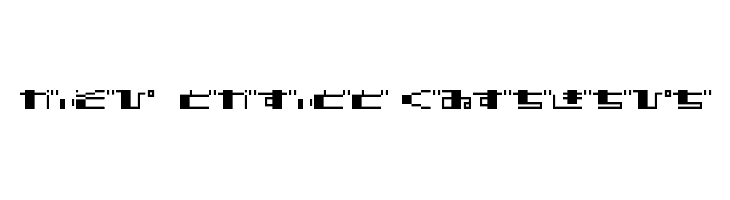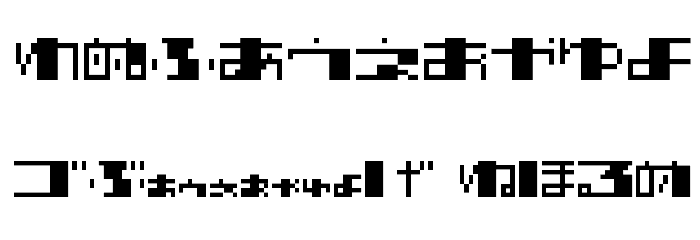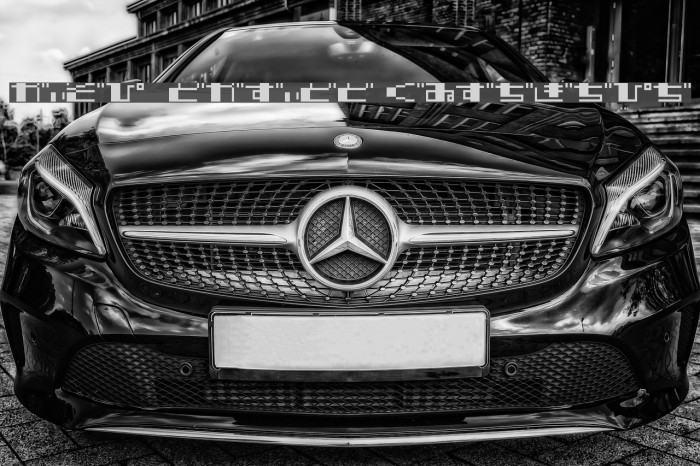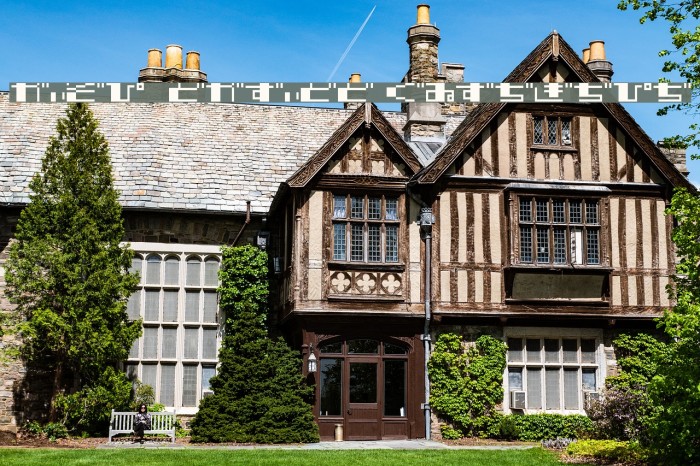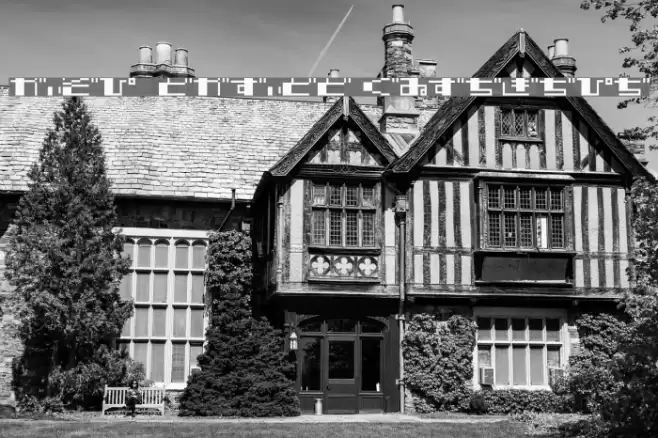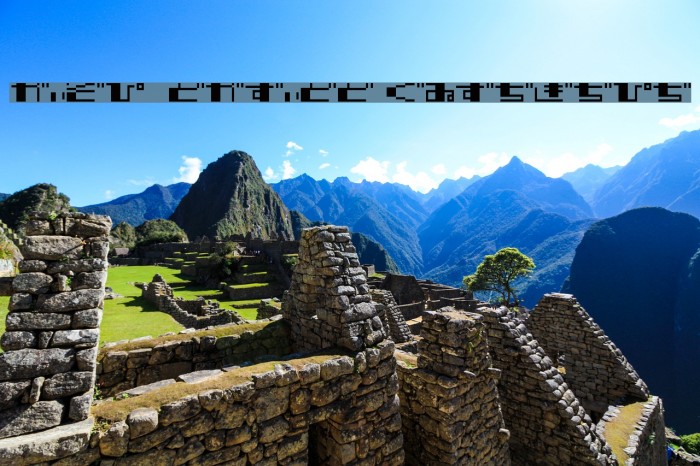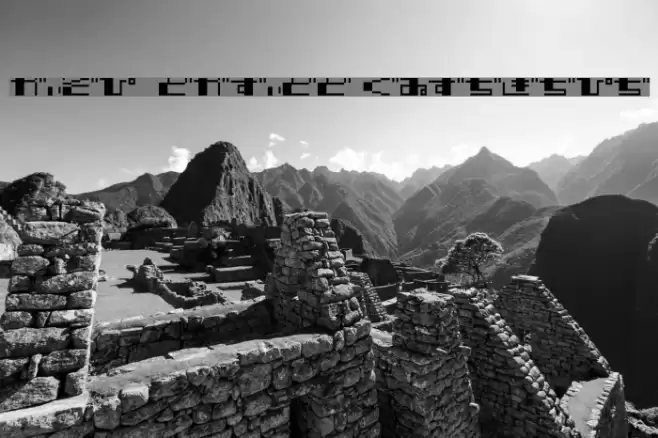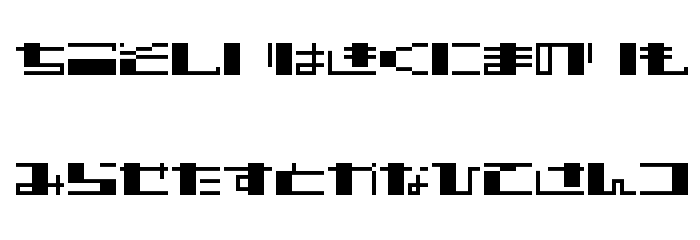
TECNO STRESS HIRAGANA Font
TECNO STRESS HIRAGANA Description
This font features a bold, pixelated style reminiscent of early digital or arcade game typography. The characters are constructed with a blocky, geometric design, giving them a distinctly modern and technological appearance. The uniformity in stroke width across all characters contributes to a cohesive and structured look. The font's design emphasizes clarity and readability, making it suitable for digital displays or retro-themed projects. Its unique style is both eye-catching and functional, ideal for conveying a sense of nostalgia or digital innovation.
| Proposed Projects | Ideal for video game design, tech-themed posters, digital art, and retro-style branding. |